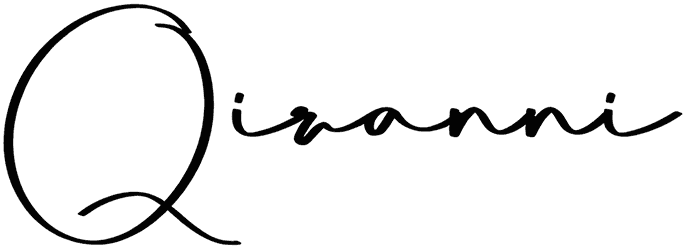
Qiranni Font
When you look at the Quiranni font, its less-seen style catches your eye. It is quite unreadable and has a minimal style that seems memorable. The Quiranni font may be helpful for several cases, such as magazines, brochures, and postcards.
This minimal font’s letters are made of thin lines with a semi-curvy shape that seems stunning. Moreover, the Quiranni font has smooth edges shining in front of your eyes. So, do not hesitate to download this luxury font.